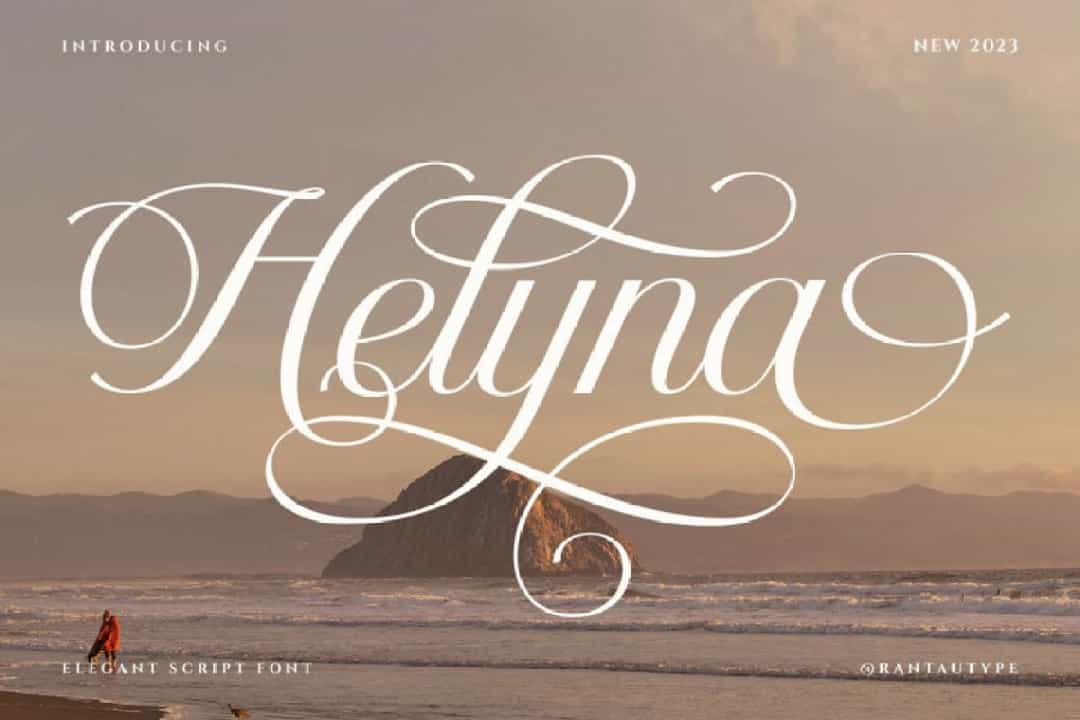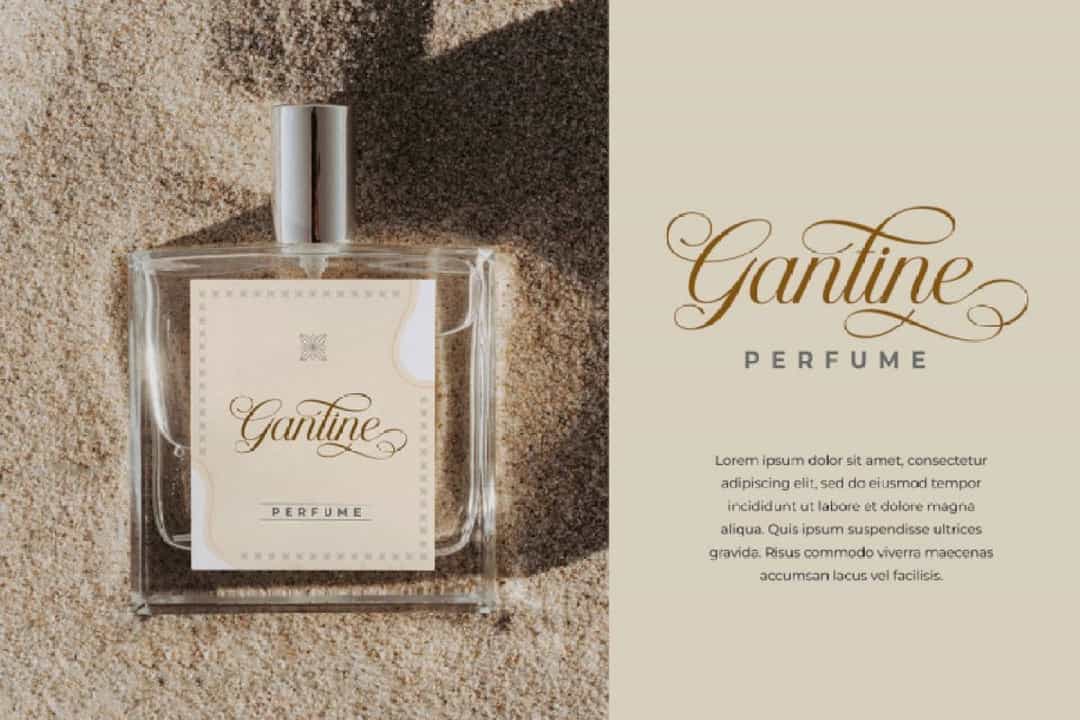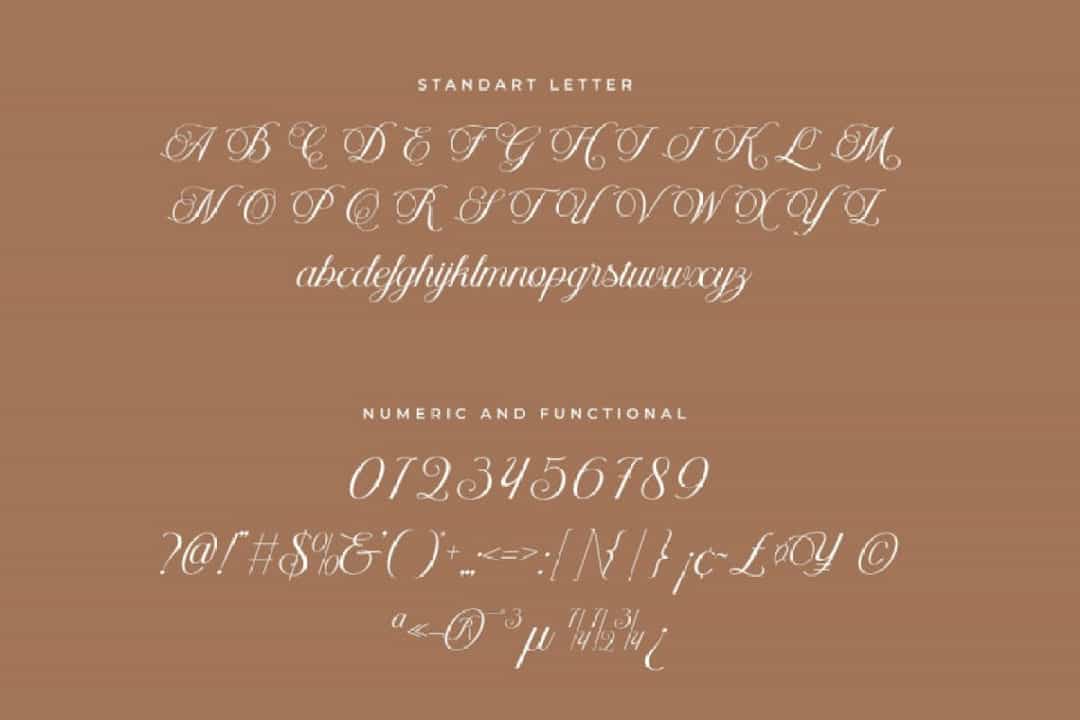
Helyna Elegant Script Font adds class and sophistication to any design with its graceful, sophisticated style. This font’s flowing cursive style adds elegance to invitations, greeting cards and other projects – Helyna will appeal to those seeking refined yet simple script fonts; Helyna elevates creative endeavors!